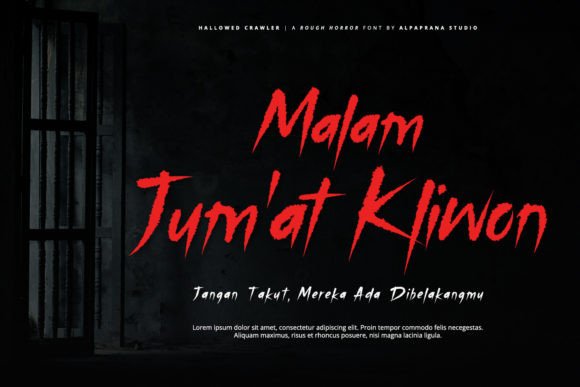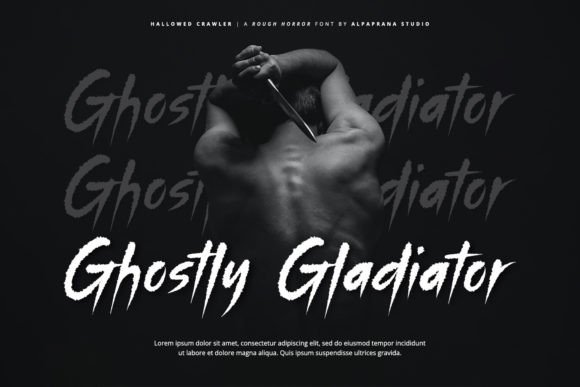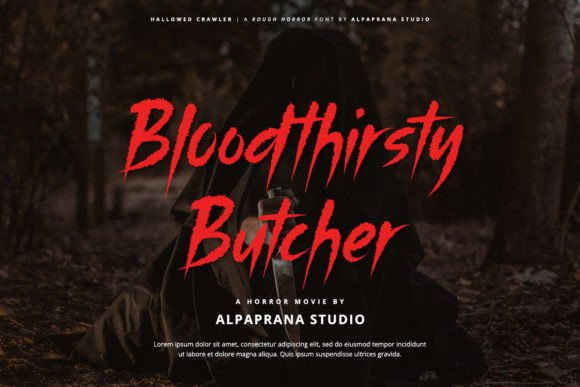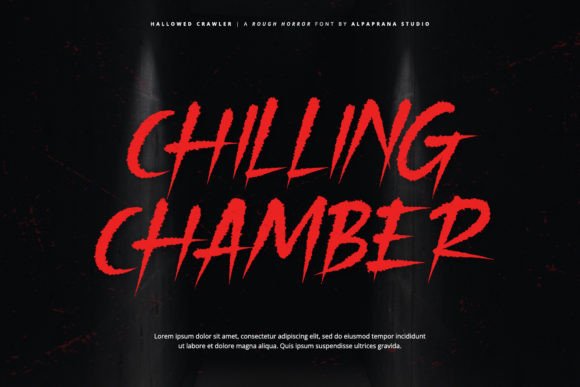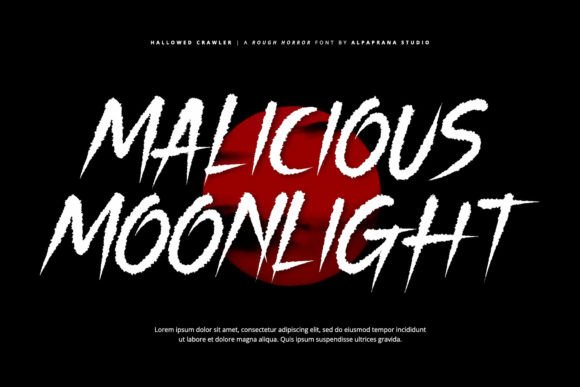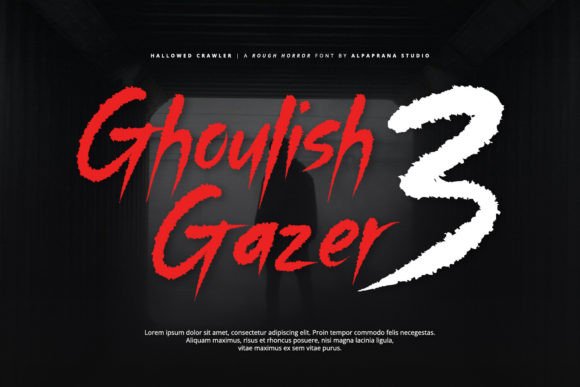
Introduction to Hallowed Crawler Font
Hallowed Crawler is a rough horror font with modern feels.
It will be perfectly used for branding, logo design, lettering, logotype, clothing, posters, magazines, packaging, shopping bags, t-shirts, book covers, photography, special events and other design projects .